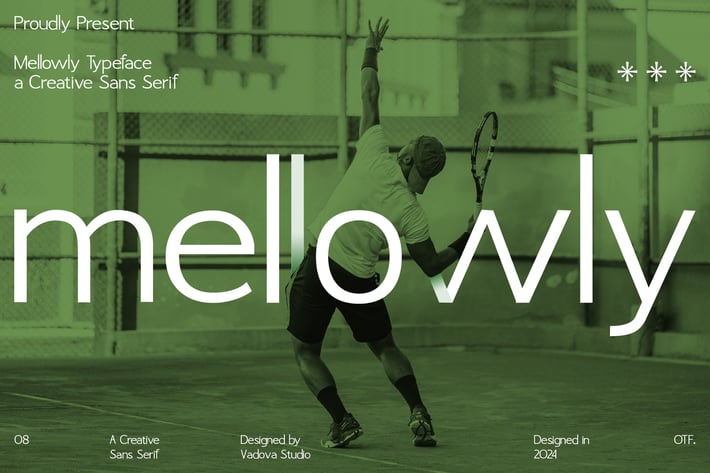
Mellowly Elegant Sans Serif Font
Mellowly Elegant Sans Serif Font is a clean and modern sans serif font that blends versatility with energy. Its well-balanced letters and geometric consistency make it perfect for logos, startup branding, sports-themed design, digital media, and bold editorial layouts. Whether you need a strong font for a tech interface or a sleek typeface for lifestyle content, Mellowly delivers clarity with a hint of attitude. Designed for impactful typography, it's your go-to choice for dynamic and progressive design projects.